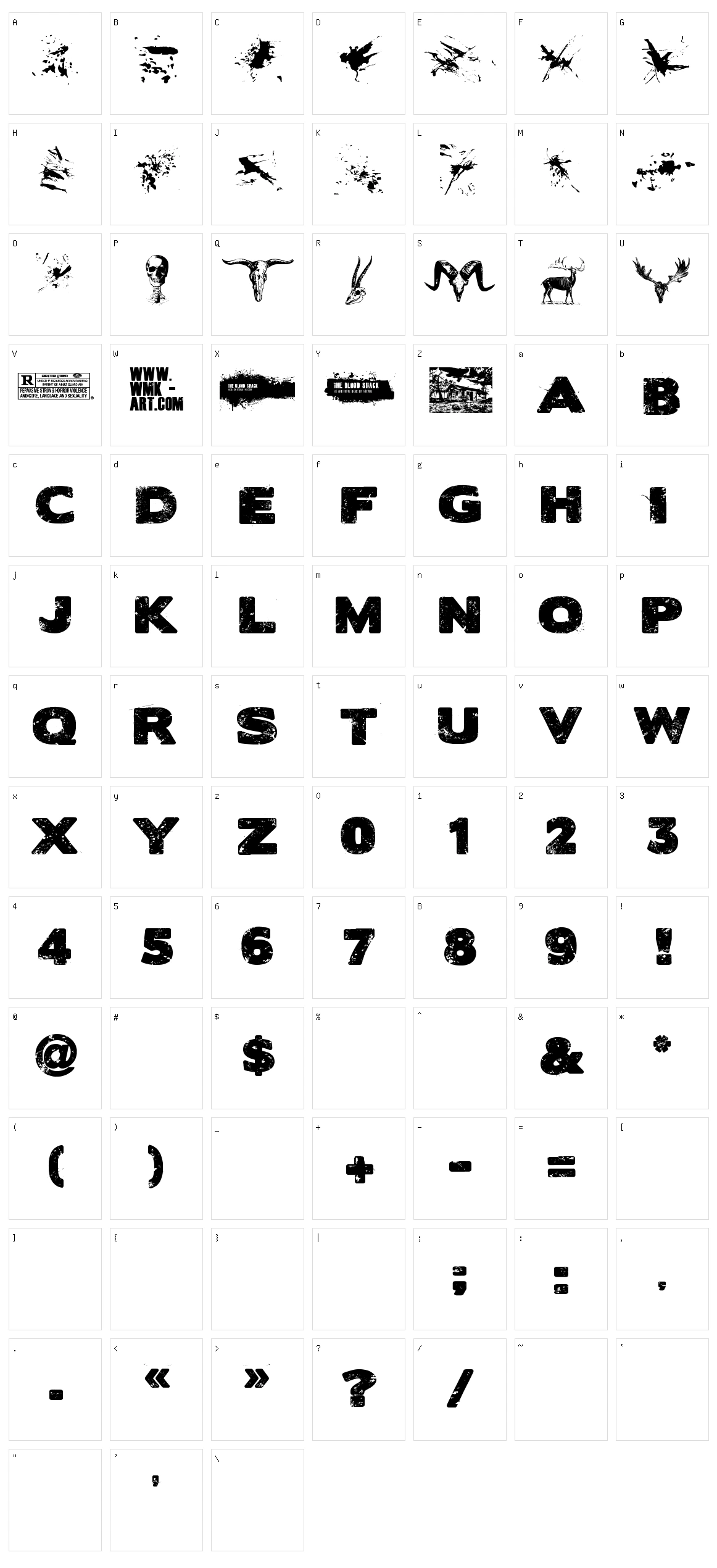
The free font The Blood Shack is carefully designed by The Wondermaker, showcasing a thoughtful balance of creativity and usability and falls under the Eroded font style. When you download the ZIP file, it contains only 220.78 KB of font files, making it lightweight and quick to download. Please review the license details below to understand permitted usage and distribution rights. If license information is not available, we recommend using this font for personal projects only or contacting the author directly for commercial usage permissions.